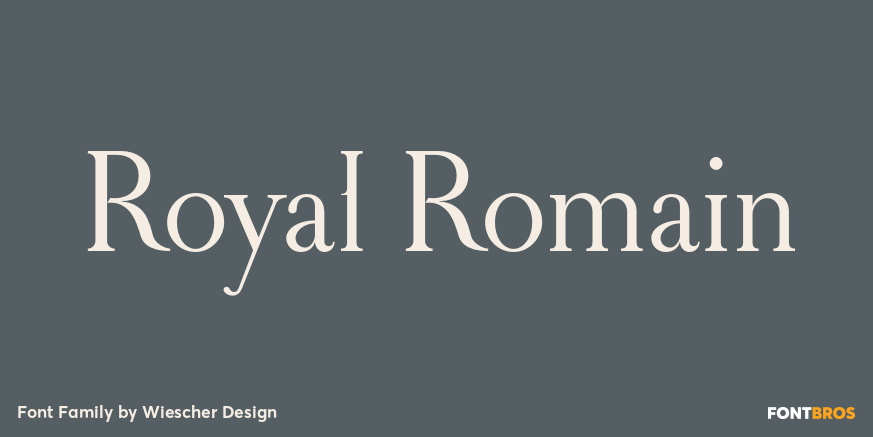
About Royal Romain
Royal Romain was inspired by a font developed for most famous king of France, Louis XIV the Sun King. A group of ?Scientists? set off to work on the task of producing the ultimate font for the king of all kings. After years of elaborations Philippe Grandjean…